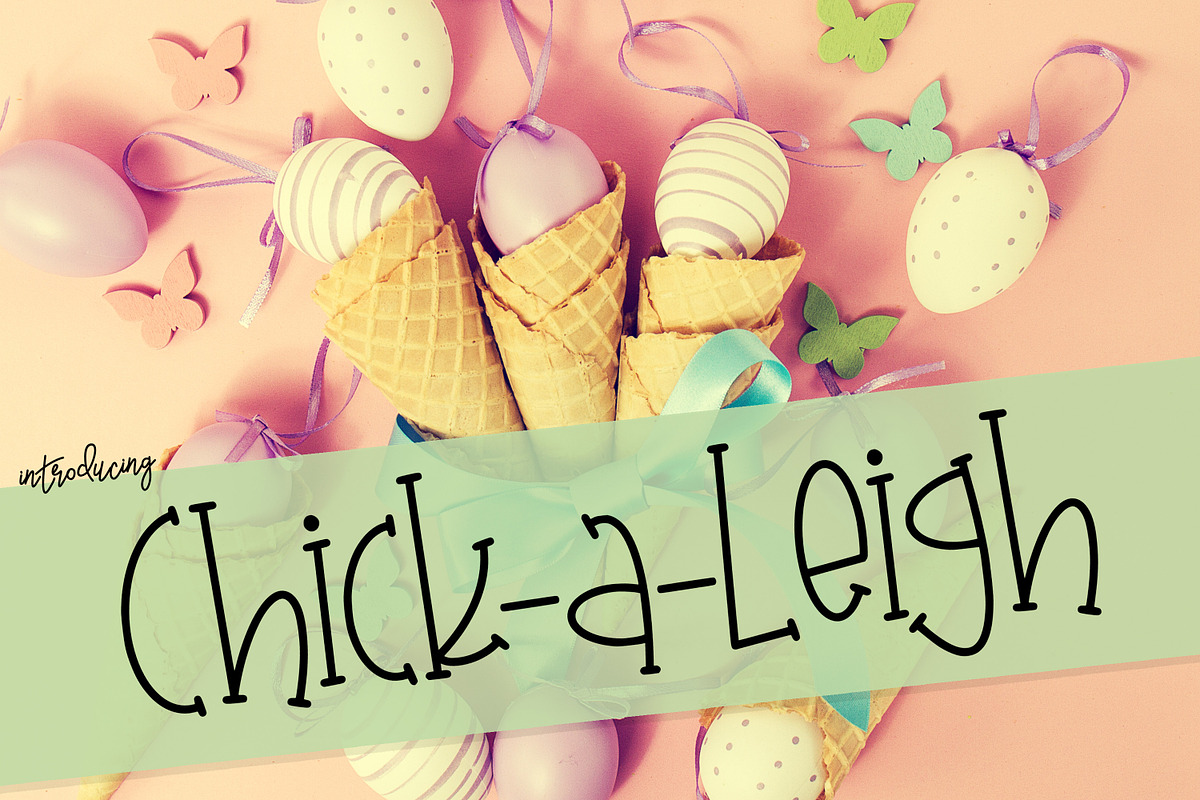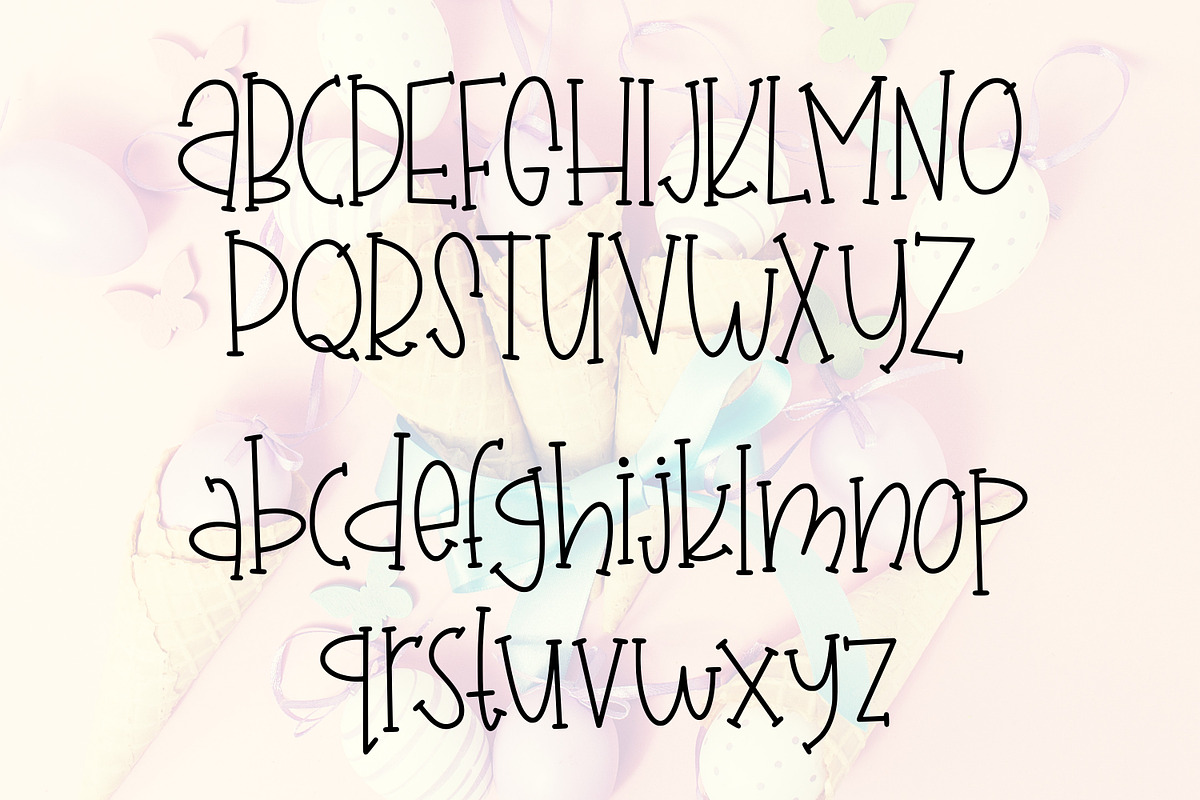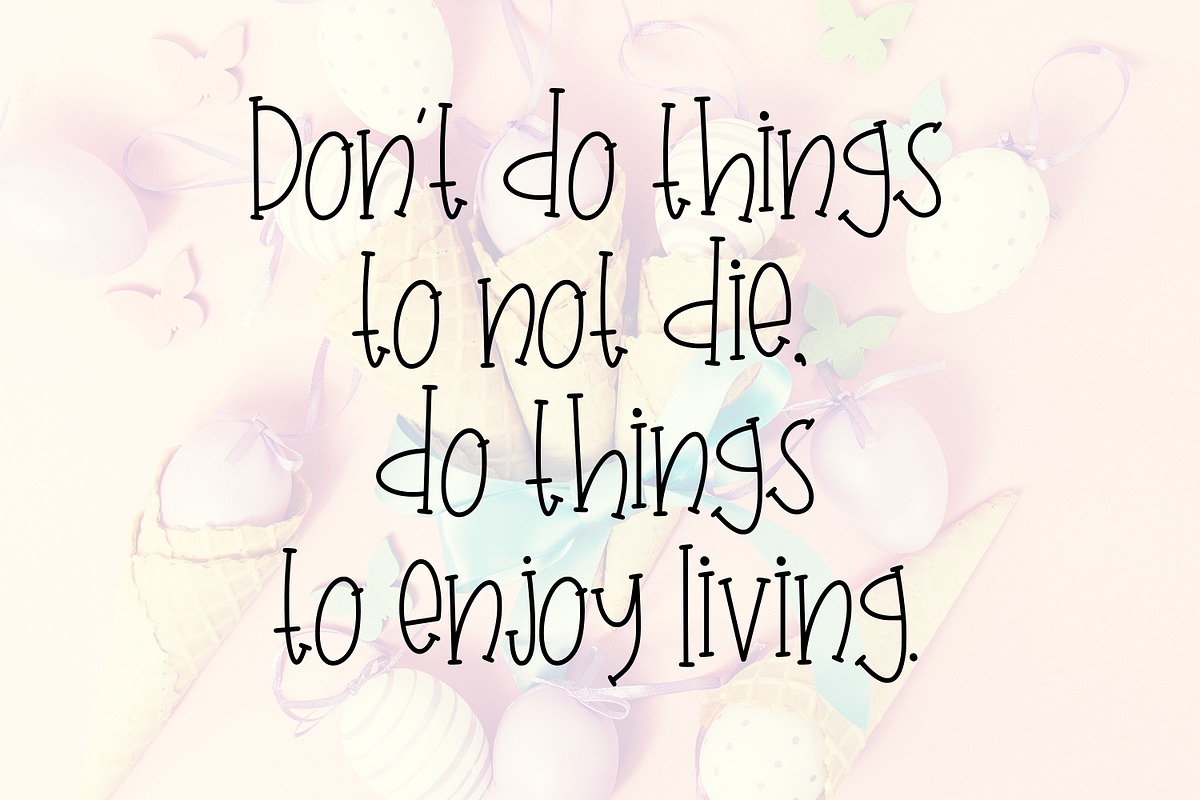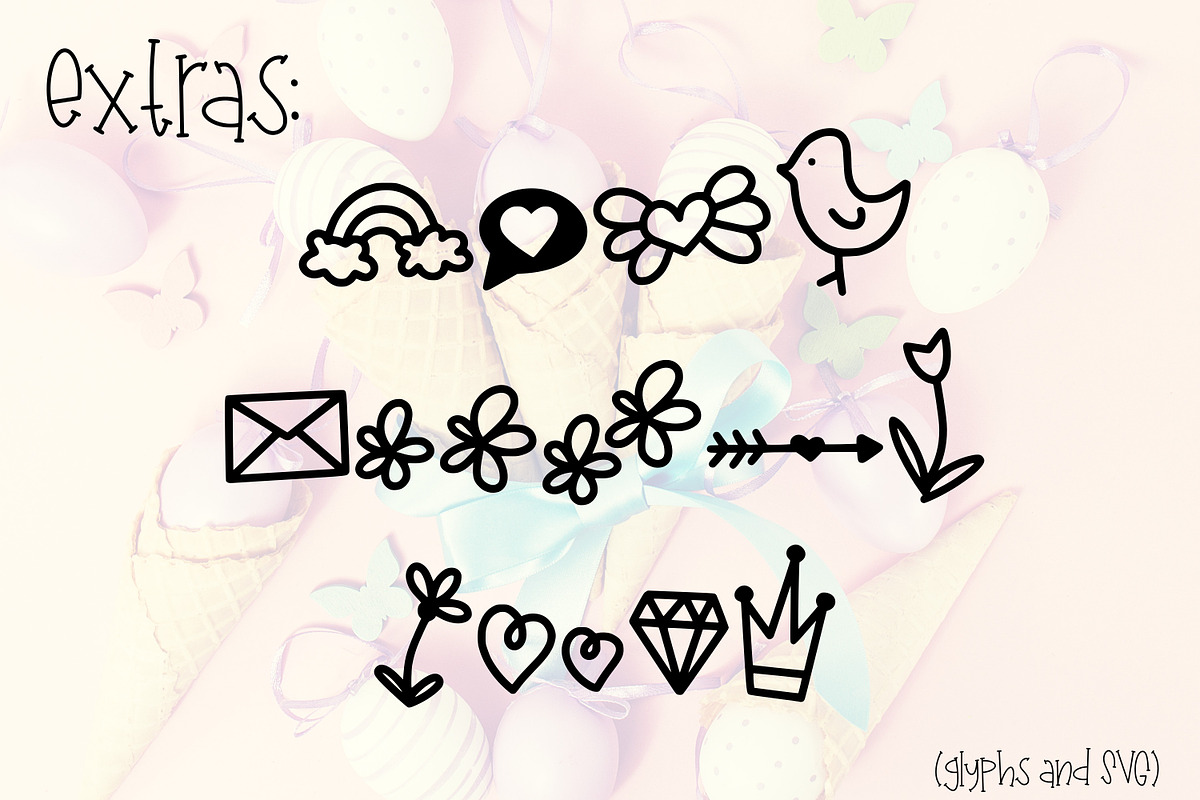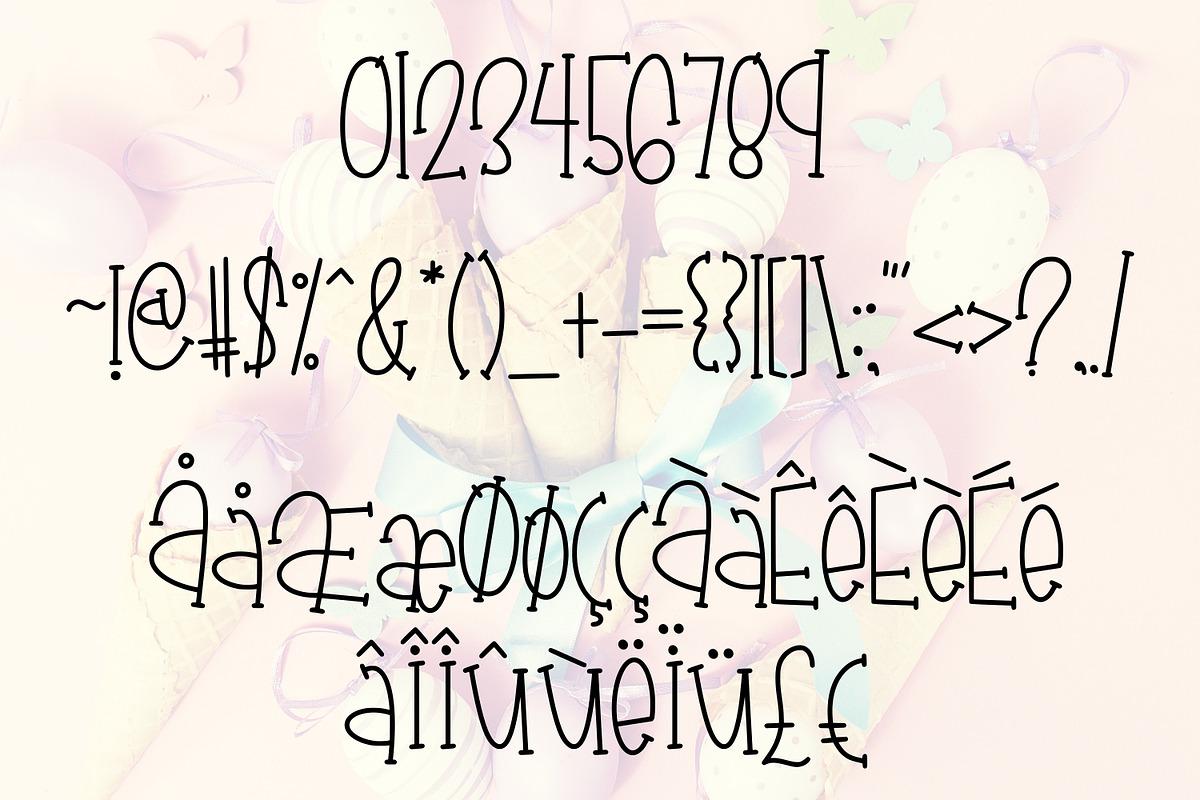
Chick-A-Leigh
This font is perfect for those spring and easter projects! It includes some extra springtime doodles such as a rainbow, chick, and flowers!